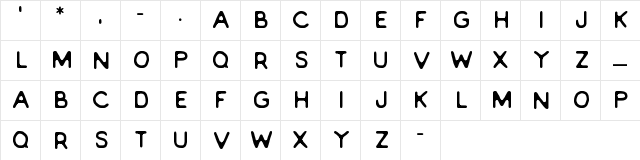
EVERLONG Regular
| Designer | Zaffar Sabbir |
Design Context for EVERLONG Typeface
EVERLONG is a composed and adaptable typeface that performs quietly and consistently across a wide range of design contexts.